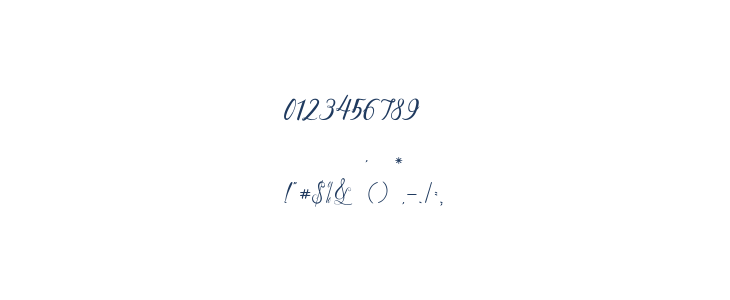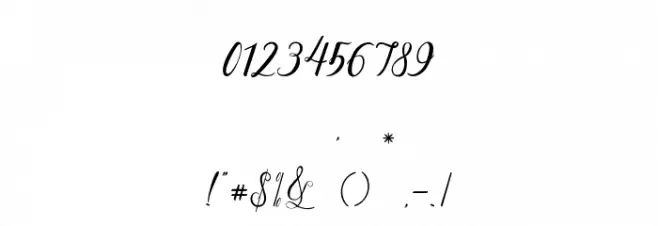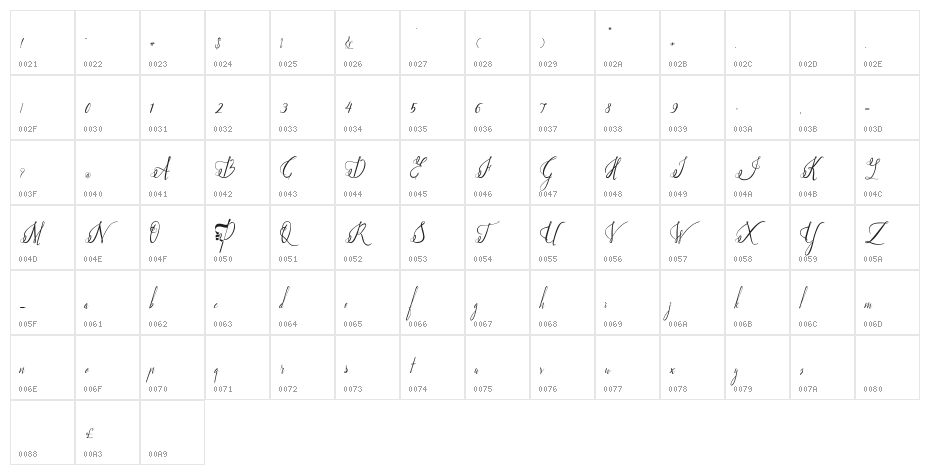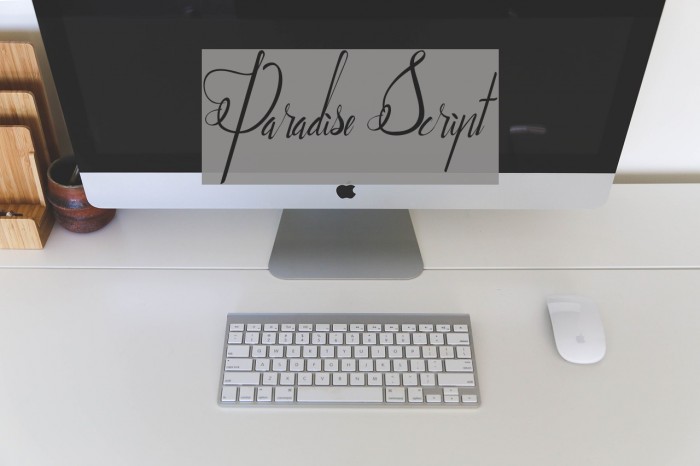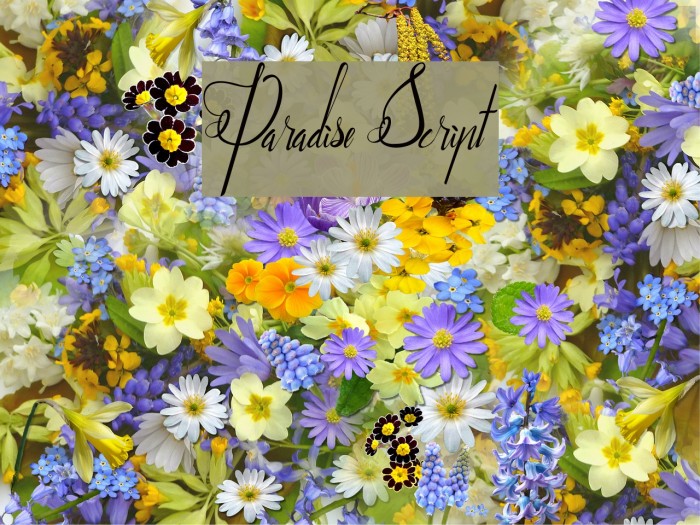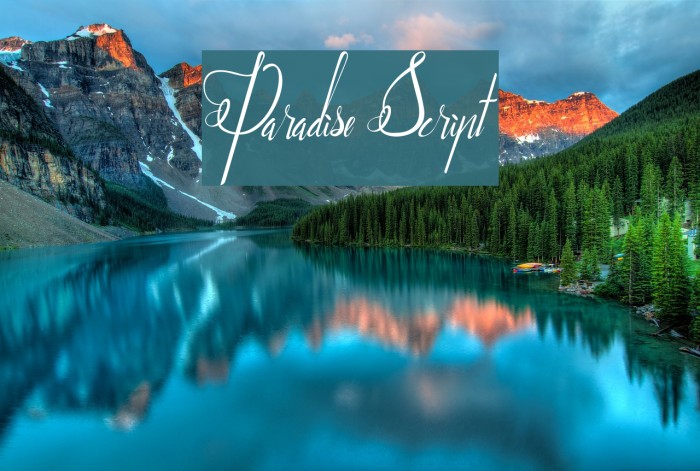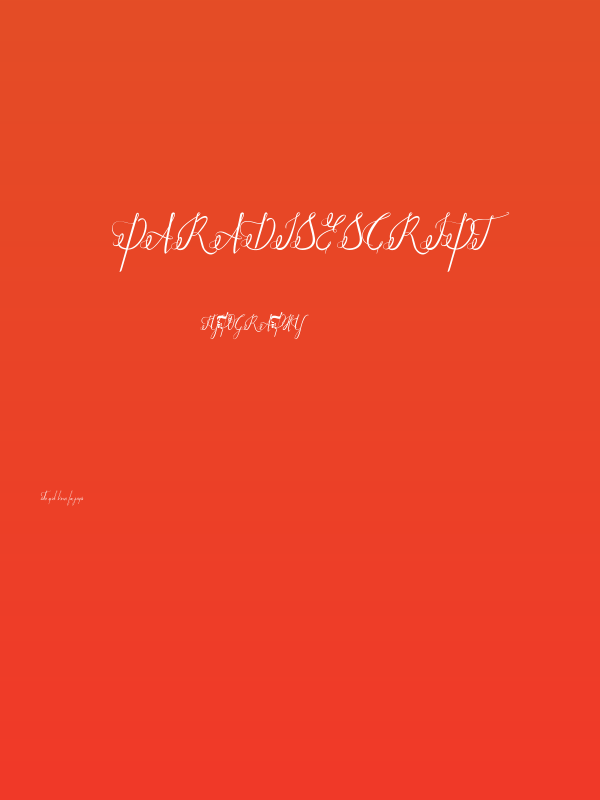
Paradise Script Font
Paradise Script Description
This elegant script font features intricate, flowing lines that create a sense of sophistication and grace. The uppercase letters are particularly ornate, with elaborate loops and swirls that give each character a unique flair. The lowercase letters maintain a more streamlined appearance, yet still exhibit a graceful curvature that complements the uppercase set. Numbers and special characters are designed with the same attention to detail, ensuring a cohesive look across all elements. The overall style is reminiscent of classic calligraphy, making it suitable for formal occasions and elegant designs. The font's delicate strokes and high contrast between thick and thin lines add to its refined aesthetic, making it a perfect choice for projects that require a touch of elegance and sophistication.
| Proposed Projects | Wedding invitations, luxury branding, formal event programs, elegant packaging, and high-end product labels. |